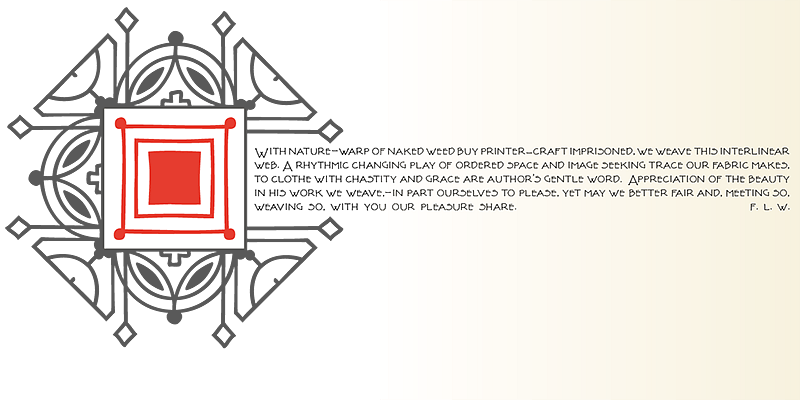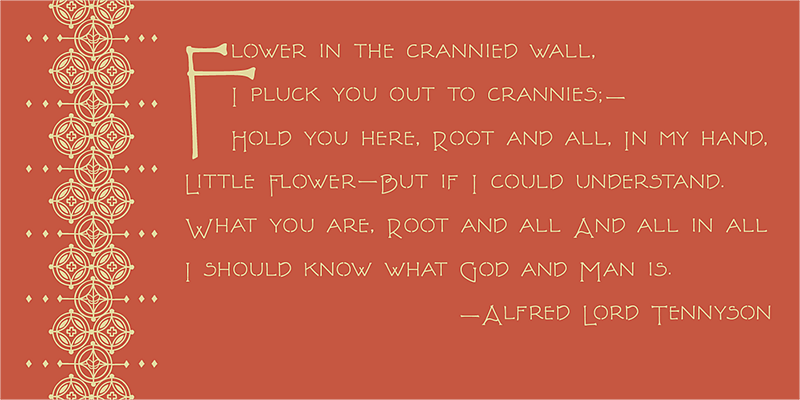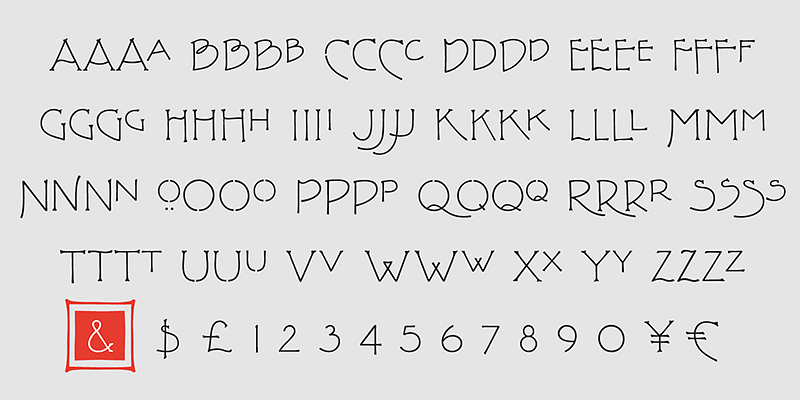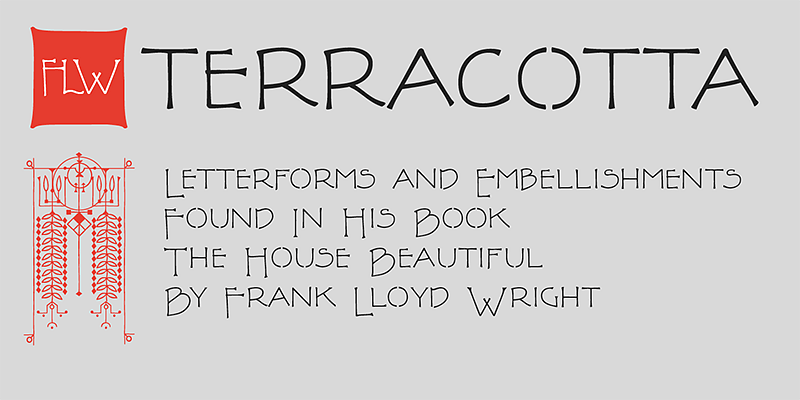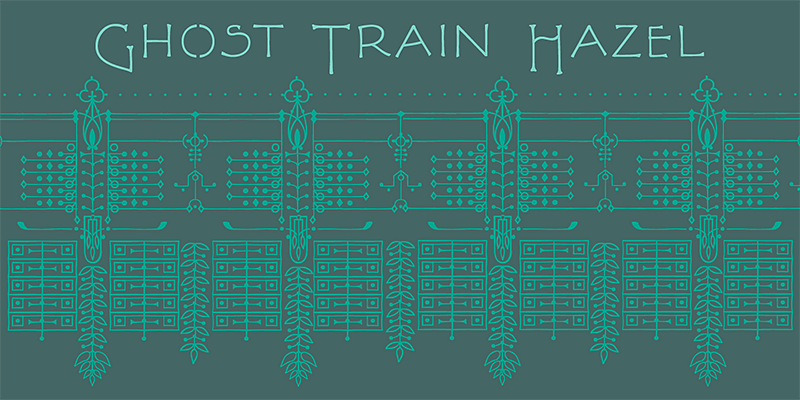
P22 FLW Terracotta is based on Frank Lloyd Wright’s early work and in his book, The House Beautiful. Wright based these delicate graphic designs on stylized natural plant forms.